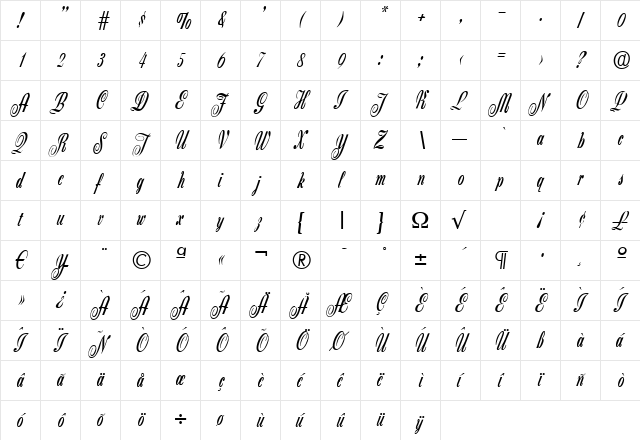
Script-Z650 Regular Font Preview
Script-Z650 Regular
Script-Z650 Regular Font Details
Design Context for Script-Z650 Typeface
Script-Z650 flows with the natural rhythm of handwritten lettering, making it ideal for designs that call for warmth and personal expression.